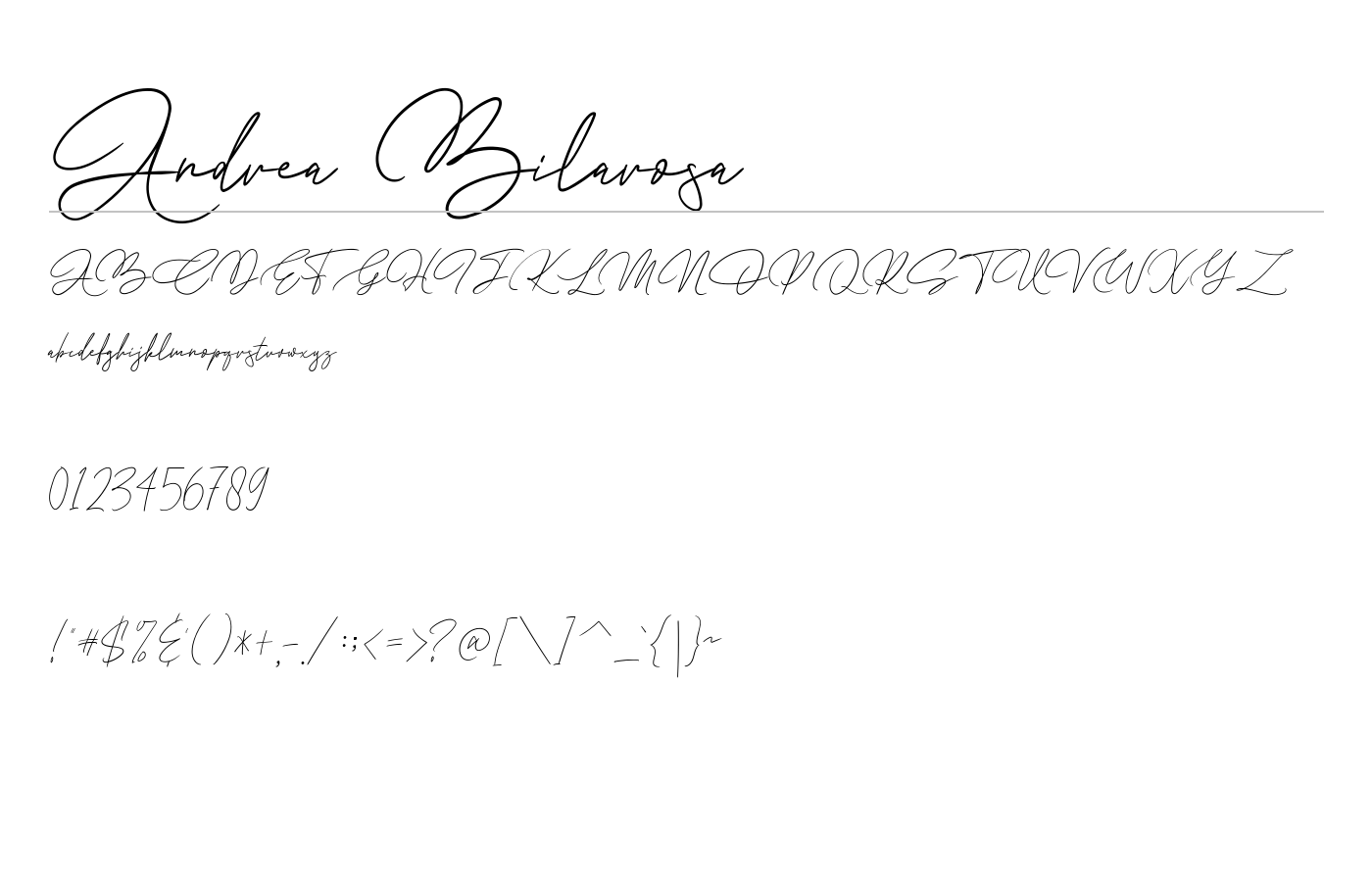
Andrea Bilarosa is an elegant, delicate script font with a hand-drawn feel, characterized by its fine, flowing lines and graceful letterforms. Its light weight and airy style make it perfect for invitations, branding, and any design that seeks a refined, personal touch. This font shines in creative projects where sophistication and a natural, artistic flair are desired.
Andrea Bilarosa Font
About Andrea Bilarosa Font
| Font family | Andrea Bilarosa Font |